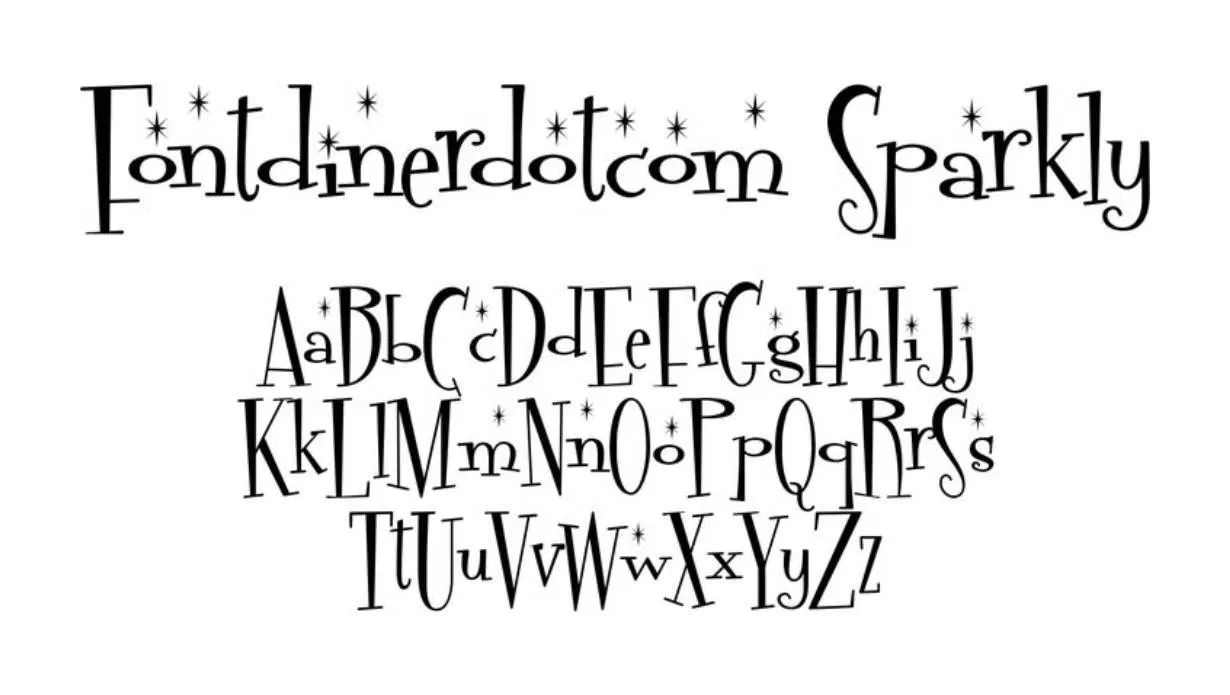
The Sparkly Font adds a touch of enchantment to your designs with its lively and glittering characters.
It’s like a magical sprinkle that brings whimsy to visuals crafted in Adobe Photoshop, adds a playful and enchanting element to web design with CSS, and infuses a sense of sparkle into whimsical MS Word documents. This font effortlessly creates a magical atmosphere in various design applications.